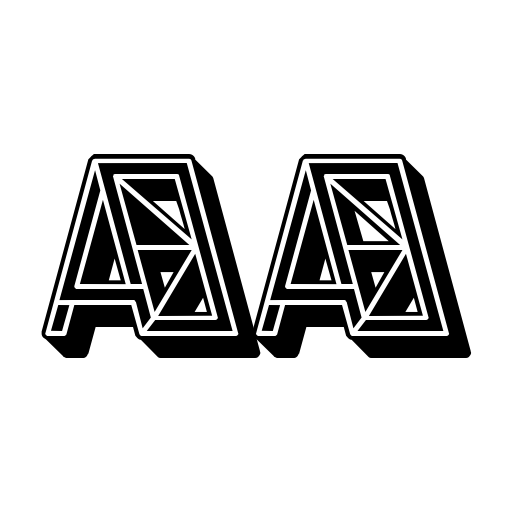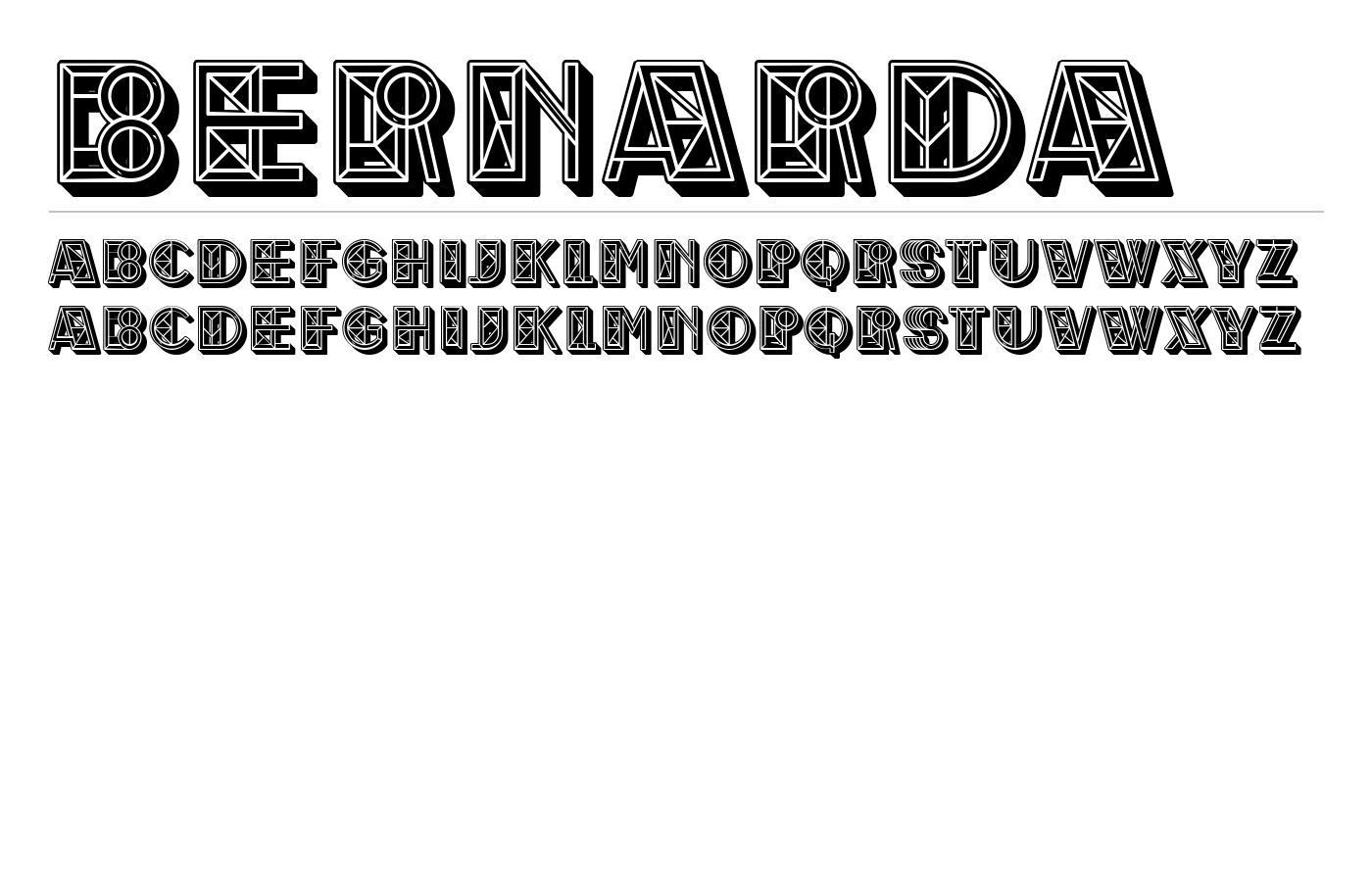
Bernarda is a bold, decorative sans serif font featuring intricate geometric patterns within each letter, creating a striking 3D shadow effect. Its elaborate design and strong, stylized shapes make it perfect for eye-catching headlines, logos, and artistic projects that aim to convey a unique, vintage-inspired yet modern flair. This font works best when used in large sizes to highlight its detailed craftsmanship and distinctive personality.
Bernarda Font